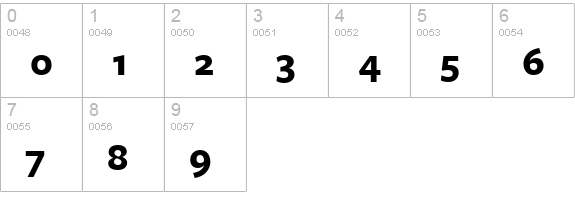
FreightSans Bold is a strong, high-contrast variant in the FreightSans typeface family \xE2\x80\x94 well suited to headlines, attention-grabbing titles, and strong calls-to-action.
FreightSans Bold is a modern and versatile typeface that exudes strength and confidence. With its bold and impactful design, this font is perfect for headlines, titles, and other display purposes where you want your text to make a statement. The clean lines and balanced proportions of FreightSans Bold make it highly legible and easy to read, even at smaller sizes. What sets FreightSans Bold apart is that it is not only a high-quality typeface, but it is also free to download. That's right - you can access this exceptional font at no cost on FontsMarket.com. Whether you're a designer looking to add a touch of sophistication to your projects or a business owner in need of a powerful branding tool, FreightSans Bold is the perfect choice for all your typography needs. Download it now and elevate your designs with this exceptional font.